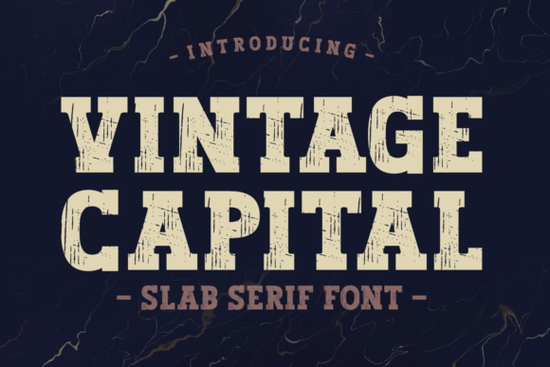
What does Vintage Capital look like up close?
Imagine heavy, slab-like serifs on capital letters that have a slightly uneven, ink-stamped surface. The texture is not just a simple noise filter it creates a gritty, almost letterpress impression that varies from letter to letter. This isn’t a clean, polished corporate font. Strokes feel bold and deliberate, giving every character a sturdy, grounded presence. Because of the thick letterforms, the font holds up well even when you scale it up for large signs or shrink it down for a product tag. The rough edges soften just enough at small sizes, leaving a subtle patina without turning into a blur.
What makes this slab serif stand out in a crowded folder of vintage-style fonts is how it balances roughness with legibility. Many heavily distressed fonts lose clarity at body text size. Vintage Capital keeps its shapes strong so your message stays front and center whether it is a shop name, a gift card sentiment, or a headline on a retro poster.
Which projects really benefit from a rough textured slab serif?
If you split your time between crafting, small business branding, and print-on-demand products, you know how important it is to have a go-to typeface that fits a rustic, handmade aesthetic. This one slots neatly into that toolbox. Here are a few common uses where it excels:
- Card making and scrapbooking adds a tactile, stamped look to greeting cards, journal covers, and photo albums.
- Logo and label design works well for coffee packaging, craft beer labels, candle jars, and anything that leans into an artisanal feel.
- Merchandise and apparel prints beautifully on t-shirts, tote bags, and hoodies when you want a bold statement without going full grunge.
- Signage and event posters readable from a distance even with the texture, which makes it practical for farm stand boards, wedding signs, and market stall displays.
Small business owners often search for a thick lettered slab serif that works across multiple surfaces. Because Vintage Capital is so bold, it stays visible on textured paper, kraft stock, and fabric. Print-on-demand sellers who test designs on light and dark backgrounds often appreciate how the heavy strokes hold ink without getting swallowed up by the fabric weave.
Is it easy to pair with other fonts?
Yes, especially if you treat it as the star of the layout. Its strong personality means you might want to pair it with a clean sans-serif for body copy something simple like a light geometric sans or a neutral grotesk can create a nice contrast. If you are designing a full packaging suite, you could set the product name in this rugged serif and use a well-spaced script or handwritten style for secondary details. The slab structure plays nicely with delicate calligraphy when kept in separate roles.
Be mindful not to stack two heavily textured fonts on top of each other. The rough detail will compete, and the layout can feel cluttered. A good rule of thumb: let Vintage Capital anchor the visual hierarchy, then support it with one or two quiet companions.
What should crafters and designers watch out for?
Since this is a display font, it is designed to shine at headline sizes and short bursts of text. Paragraph-level reading like a long product description may feel too heavy. If you need to set a small amount of body copy, increase the tracking slightly and use a generous line height to keep the roughness from overlapping.
How does it fit into a modern vintage trend?
The demand for handcrafted-looking design keeps growing, from farmers market tags to digital Etsy thumbnails. A bold vintage font with authentic texture shortcuts a lot of the manual work you don’t need to distress it yourself or layer effects in Photoshop to get that aged ink impression. This one delivers the look straight out of the file, which is a big plus when you are juggling multiple client orders or personal craft projects on a tight timeline.
Designers who focus on brand identity appreciate that this slab serif doesn’t rely on extreme weathering. It suggests age without becoming gimmicky, so it ages well even as the trendy “distressed” look matures into more subtle, tactile styles. A label printed with Vintage Capital could hang in a boutique for years and still feel intentional, not like a novelty.